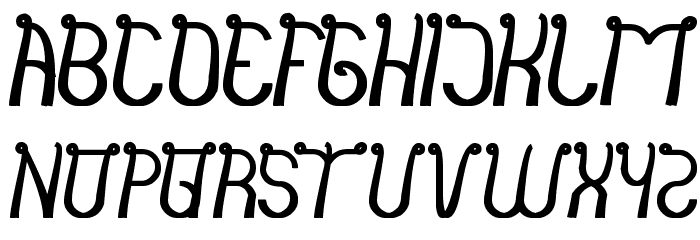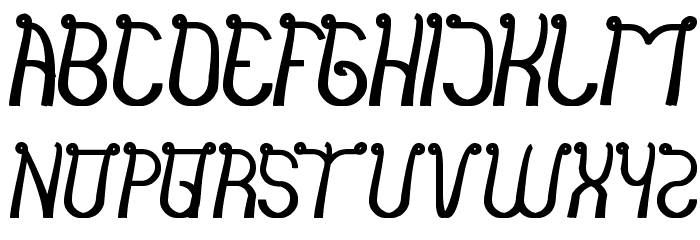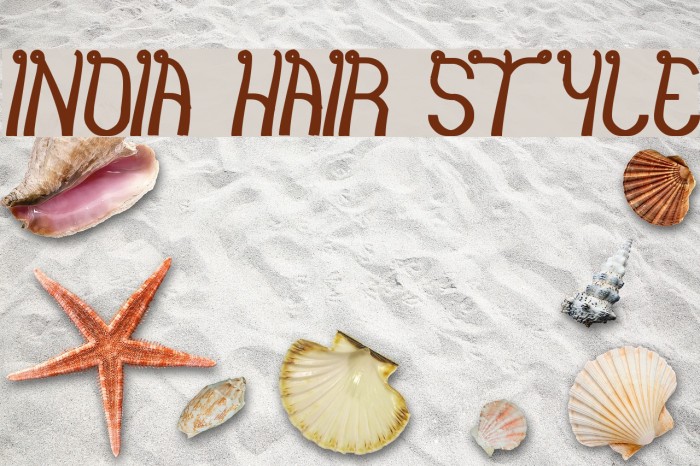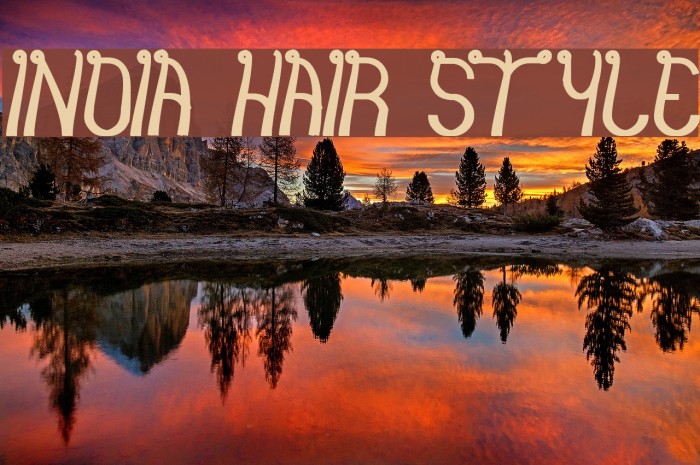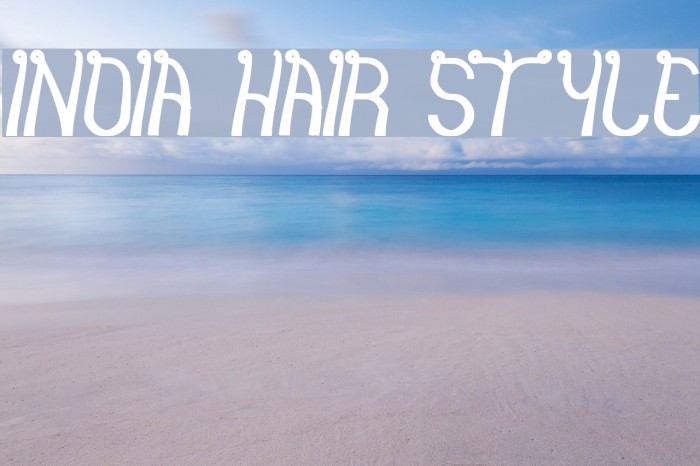
india hair style Font
This font features a unique and playful design with a decorative flair. Each character is adorned with small loops or curls at the ends, giving it a whimsical and artistic appearance. The strokes are consistent in thickness, providing a uniform look across all letters. The uppercase and lowercase letters maintain a cohesive style, with the uppercase being slightly more pronounced. The numbers and special characters follow the same decorative theme, making this font suitable for creative and artistic projects.
A playful and decorative font with whimsical loops and curls.
- Proposed Projects: Ideal for creative projects such as invitations, greeting cards, children's books, and artistic branding.
- Use Case: Logos, Headlines, Artistic projects